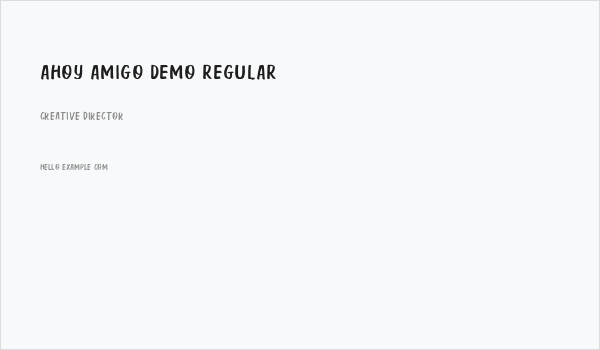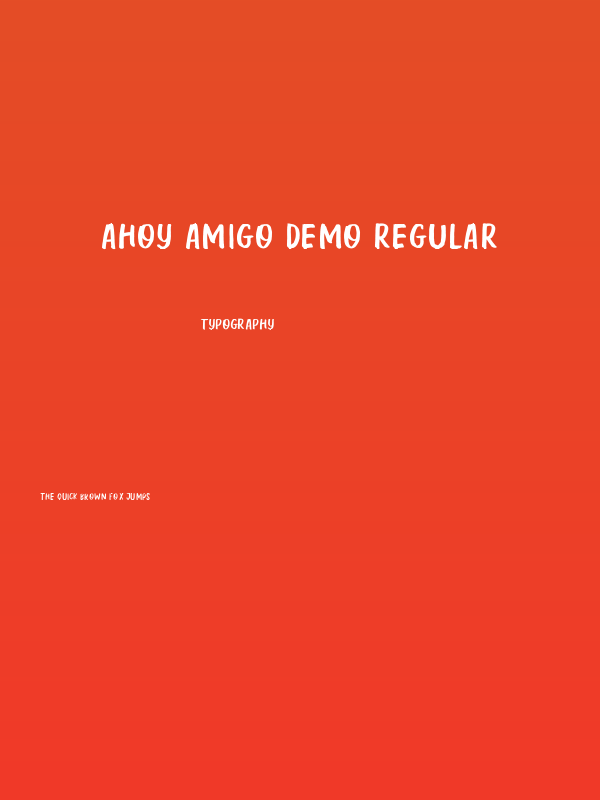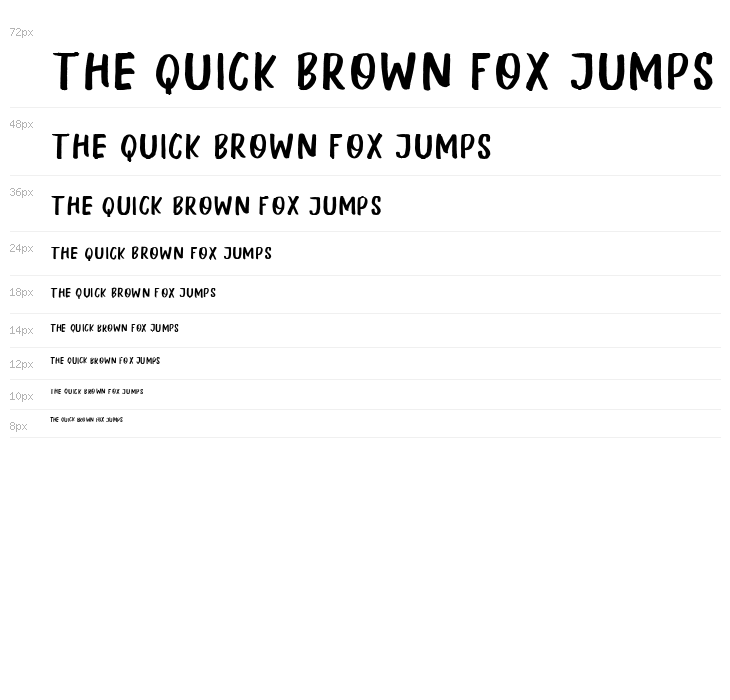
Ahoy Amigo DEMO Regular Font
Ahoy Amigo DEMO Regular Description
This font features a playful and bold style with a hand-drawn appearance. The characters are slightly irregular, giving it a casual and friendly vibe. The strokes are thick and consistent, creating a strong visual impact. The uppercase letters are prominent, while the lowercase letters maintain the same boldness, ensuring readability. The numbers and special characters follow the same design, making the font versatile for various uses. Its unique style makes it suitable for projects that require a personal touch or a fun, informal look.
| Proposed Projects | Ideal for children's books, greeting cards, playful branding, and social media graphics. |